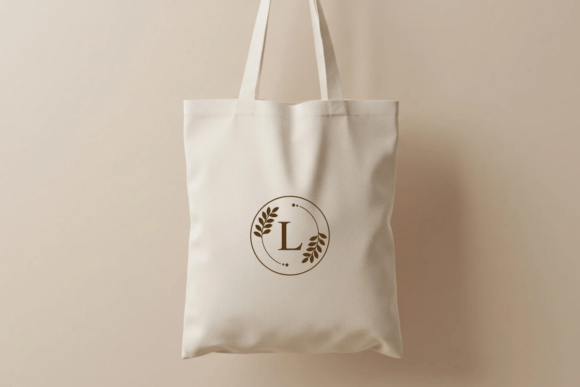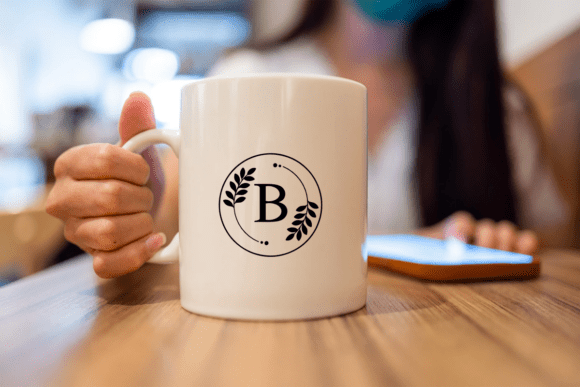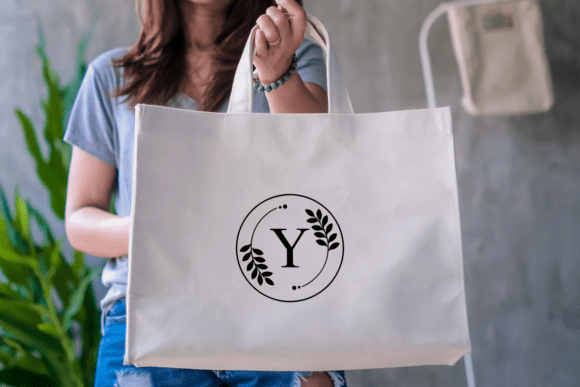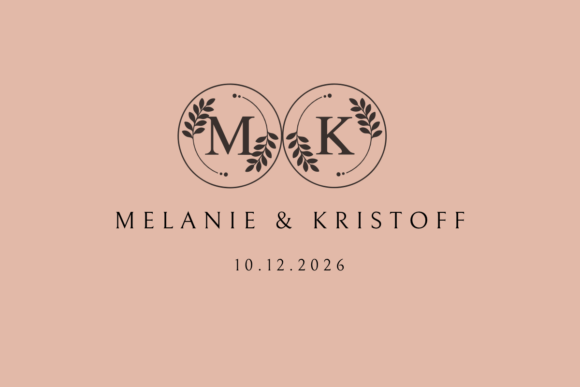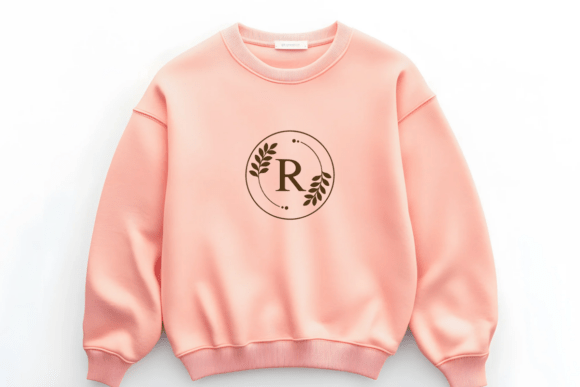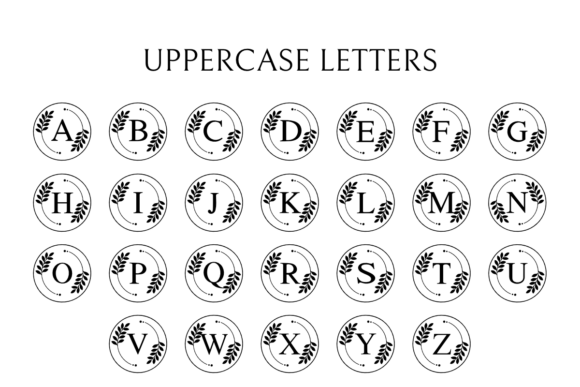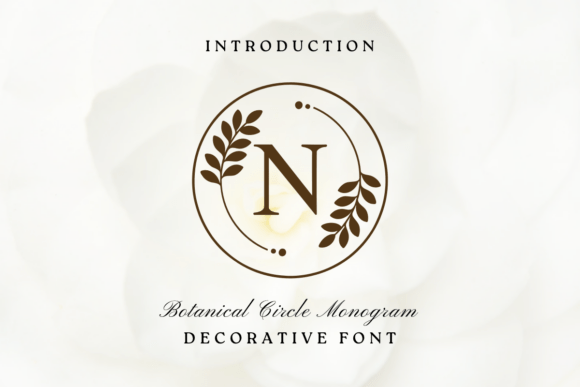
The Botanical Circle Monogram Font: A Nature-Inspired Design Game-Changer
I’ll never forget the time I was working on a branding project for an eco-friendly skincare brand. My client wanted a logo that exuded natural elegance, but I was struggling to find the perfect font. That’s when I stumbled upon the Botanical Circle Monogram font, and it completely transformed my design. The refined, leafy wreath and clean monogram style instantly conveyed the brand’s values and aesthetic. In this article, I’ll share my experience with this beautiful font, its features, and how to make the most of it in your designs.
An Honest Review: What I Love and What to Consider
- ✅ Elegant, nature-inspired design that adds a touch of sophistication to any project
- ✅ Perfectly balanced circular frame with delicate leaf accents
- ✅ Clean and professional monogram style ideal for various applications
- ✅ Easy to use and customize with OpenType features and glyphs
Small Quirks to Consider 🤔
- ⚠️ Limited character set, mainly focused on monograms and basic punctuation
- ⚠️ May not be suitable for body text or lengthy content due to its decorative nature
The Designer Inspiration Behind Botanical Circle Monogram
The Botanical Circle Monogram font was inspired by the beauty of nature and the elegance of traditional typography. The designer aimed to create a font that would bring a touch of sophistication and natural harmony to branding and design projects. By combining delicate leaf accents with a clean monogram style, the font achieves a perfect balance between organic and refined.
Q: What type of projects is Botanical Circle Monogram best suited for?
A: Botanical Circle Monogram is ideal for branding, packaging, and design projects that require a natural, elegant feel, such as eco-friendly skincare brands, upscale garden centers, and organic food products.
Q: Can I use Botanical Circle Monogram for body text?
A: While Botanical Circle Monogram is a beautiful font, it’s primarily designed for headlines, titles, and short text. Its decorative nature makes it less suitable for body text or lengthy content.
Q: Does Botanical Circle Monogram support OpenType features?
A: Yes, Botanical Circle Monogram supports OpenType features, including glyphs and stylistic alternates. This allows for greater flexibility and customization in your designs.